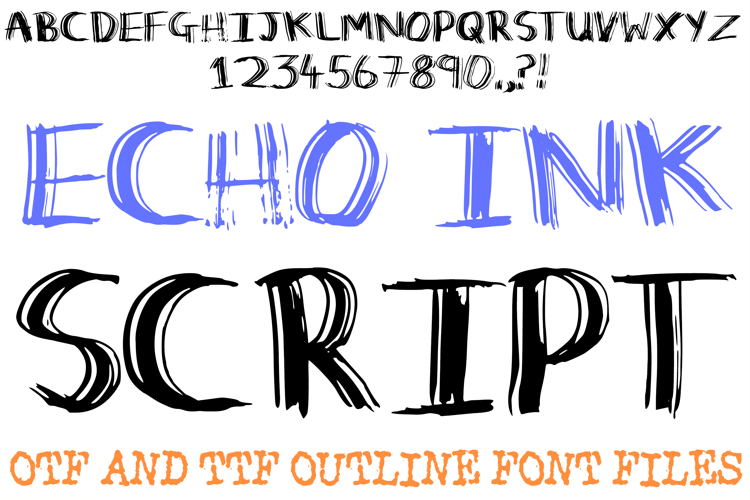
Echo Ink Script Handwriting Lettering Font Hand Drawn ABC
The Echo Ink Script is a raw, high-energy display typeface that captures the authentic look of a felt-tip marker on paper. This font is defined by its unique "double-stroke" geometry, giving every character a vibrating, jittery effect that looks like hand-sketched animation frames. It moves away from perfect digital curves to embrace a "shaky" hand-drawn aesthetic that feels human, immediate, and full of motion.
As a designer, you’ll find this font is a powerhouse for indie music branding, notebook-style graphics, and distressed streetwear designs. Whether you are working on lo-fi social media content, skater-style apparel, or creative planners, the Echo Ink Script delivers a tactile, "sketched" personality that adds a layer of motion and "double vision" style to your typography.